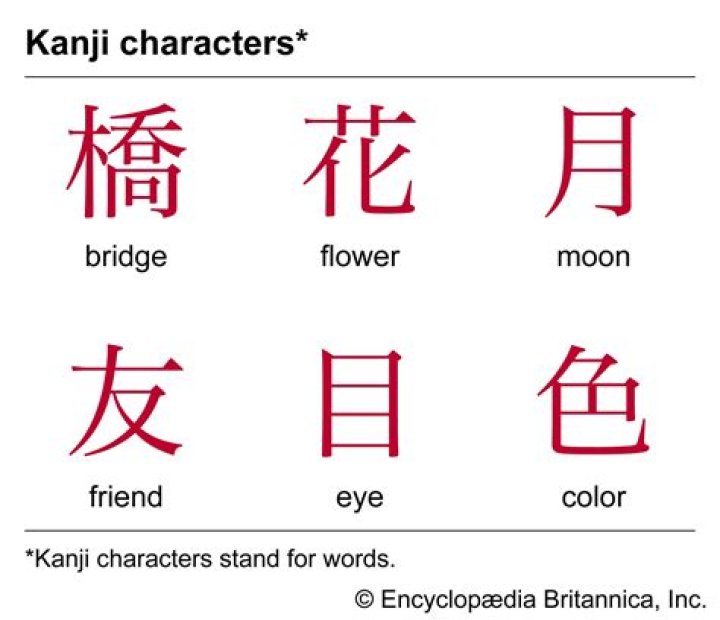
What English font do Japanese use?
Most Japanese websites use default font sets provided on Windows or Mac. The latest ones are Meiryo and Hiragino Kaku Gothic Pro. For older versions such like Windows XP, it is good to add former default fonts MS Gothic(or MS Mincho)/Osaka.
What is standard Japanese font?
Most Japanese websites use default font sets provided on Windows, Mac or Ubuntu. The latest ones are Meiryo, Hiragino Kaku Gothic Pro and Noto. For older versions such like Windows XP, it is good to add former default fonts MS Gothic(or MS Mincho)/Osaka. Older Linux versions may include Takao fonts.
What is the best font for Asian design?
Hikaru Asian presented by YandiDesigns is a cute Japanese font. This is a playful multipurpose font including Basic Latin characters. The font fits many designs such as heading, titles, banners, logos, and many more. Almost Japanese Cartoon designed by Galdino Otten is an all caps Asian looking font. this font is for personal designs only.
What is Japanese font used for?
Japanese font is for those who are interested in designing video games for martial arts and sports such as judo, taekwondo, and karate. You can use these letters on websites, social networks, flyers, and comic books. Almost Japanese Comic is a foreign-looking font designed by Galdino Otten.
What fonts are in the Tokyo Creative Kit?
The Tokyo Creative Kit with an authentic Japanese style is created by Good Stuff and Supplies. 12 different font files are included in this package and a wide range of awesome designing features are supported. Check it out! OKAMI is a Japanese inspired display font created by Glyph44.